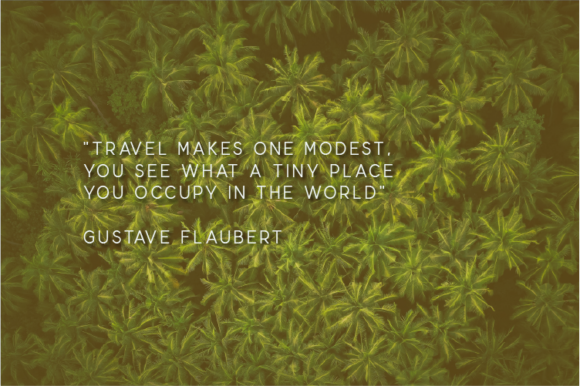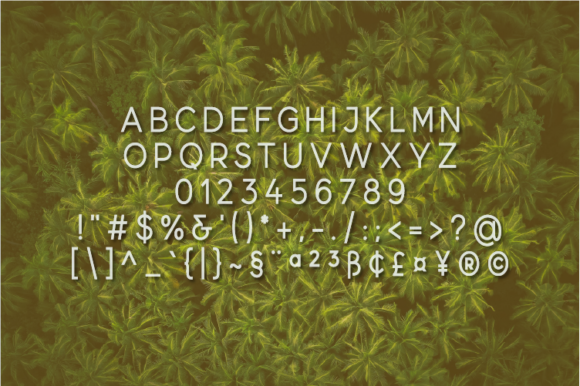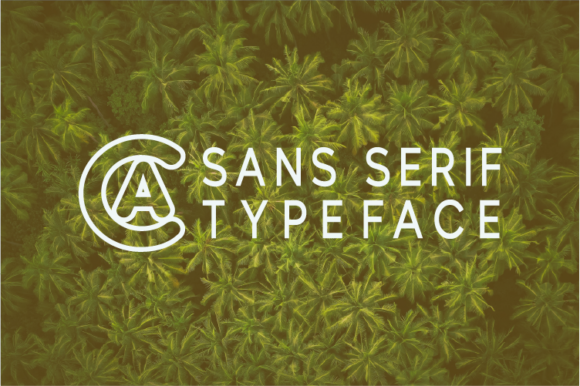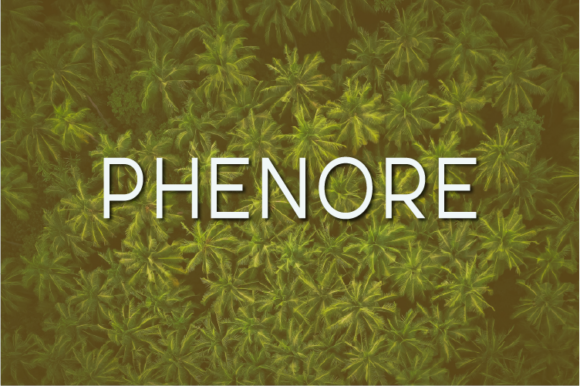
Introduction to Phenore Font
Phenore is a minimal and neat sans serif font.
This font is ideal for writing web designs, business cards, or pretty much anything else that requires a unique touch .
Key Features of Phenore Font
Why Choose Phenore Font?
Phenore Font offers exceptional quality and versatility, making it a valuable addition to your design toolkit. Whether you’re creating for personal projects or commercial use, Phenore Font delivers professional results.